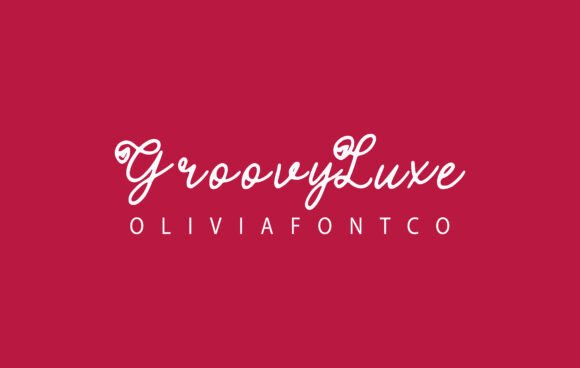
Introducing Groovyluxe Font: The Ultimate Handwritten Font for Creative Expression
Are you looking for a font that can add a touch of romance and elegance to your creative projects? Look no further than Groovyluxe Font, an authentic handwritten font designed to capture the essence of sophistication and style. In this article, we’ll explore the features and benefits of Groovyluxe Font, and how it can elevate your designs to new heights.
What is Groovyluxe Font?
Groovyluxe Font is a carefully crafted handwritten font that exudes a sense of romance and whimsy. With its flowing lines and delicate curves, this font is perfect for adding a touch of elegance to any design. Whether you’re working on a magazine headline, social media post, or wedding invitation, Groovyluxe Font is the perfect choice for creating a lasting impression.
Key Features of Groovyluxe Font
• Authentic Handwritten Style: Groovyluxe Font is designed to mimic the look and feel of handwritten text, giving your designs a personal and unique touch.
• Romantic Touch: With its flowing lines and delicate curves, Groovyluxe Font adds a touch of romance and elegance to any design.
• Legible and Versatile: This font is designed to be highly legible, making it perfect for use as both title and body text.
• Wide Range of Applications: Groovyluxe Font is suitable for a wide range of design applications, including magazine headlines, social media posts, branding, wedding invitations, cards, and more.
Benefits of Using Groovyluxe Font
So why choose Groovyluxe Font for your design projects? Here are just a few benefits of using this amazing font:
• Adds a Personal Touch: With its handwritten style, Groovyluxe Font adds a personal touch to your designs, making them stand out from the crowd.
• Enhances Readability: The legible design of Groovyluxe Font ensures that your text is easy to read, even at small sizes.
• Versatile and Flexible: Groovyluxe Font can be used for a wide range of design applications, from titles and headings to body text and captions.
• Unique and Creative: With its romantic and whimsical style, Groovyluxe Font is the perfect choice for designers looking to add a unique and creative touch to their work.
How to Use Groovyluxe Font in Your Designs
Using Groovyluxe Font in your designs is easy. Here are a few tips to get you started:
• Pair it with Other Fonts: Groovyluxe Font pairs well with a range of other fonts, from serif and sans serif fonts to script and display fonts.
• Use it for Titles and Headings: Groovyluxe Font is perfect for use as a title or heading font, adding a touch of elegance and sophistication to your designs.
• Use it for Body Text: Groovyluxe Font is also suitable for use as a body text font, providing a clear and legible reading experience for your audience.
Examples of Groovyluxe Font in Action
Here are a few examples of Groovyluxe Font in action:
• Wedding Invitations: Groovyluxe Font is perfect for wedding invitations, adding a touch of romance and elegance to your design.
• Magazine Headlines: Groovyluxe Font is also suitable for use in magazine headlines, providing a clear and attention-grabbing title font.
• Social Media Posts: Groovyluxe Font can be used to add a touch of personality and style to your social media posts, making them stand out from the crowd.
In conclusion, Groovyluxe Font is an amazing handwritten font that offers a unique and creative way to add a touch of romance and elegance to your designs. With its legible design, versatile style, and wide range of applications, Groovyluxe Font is the perfect choice for designers looking to take their creative ideas to the next level.